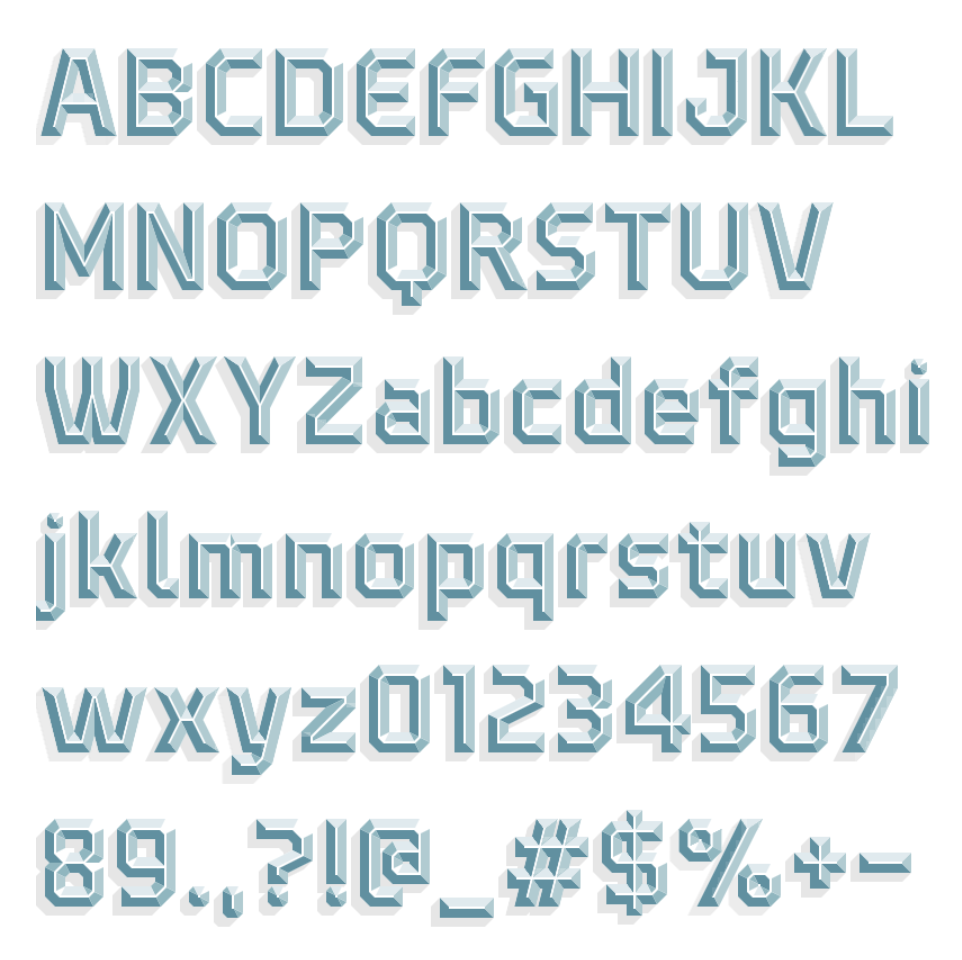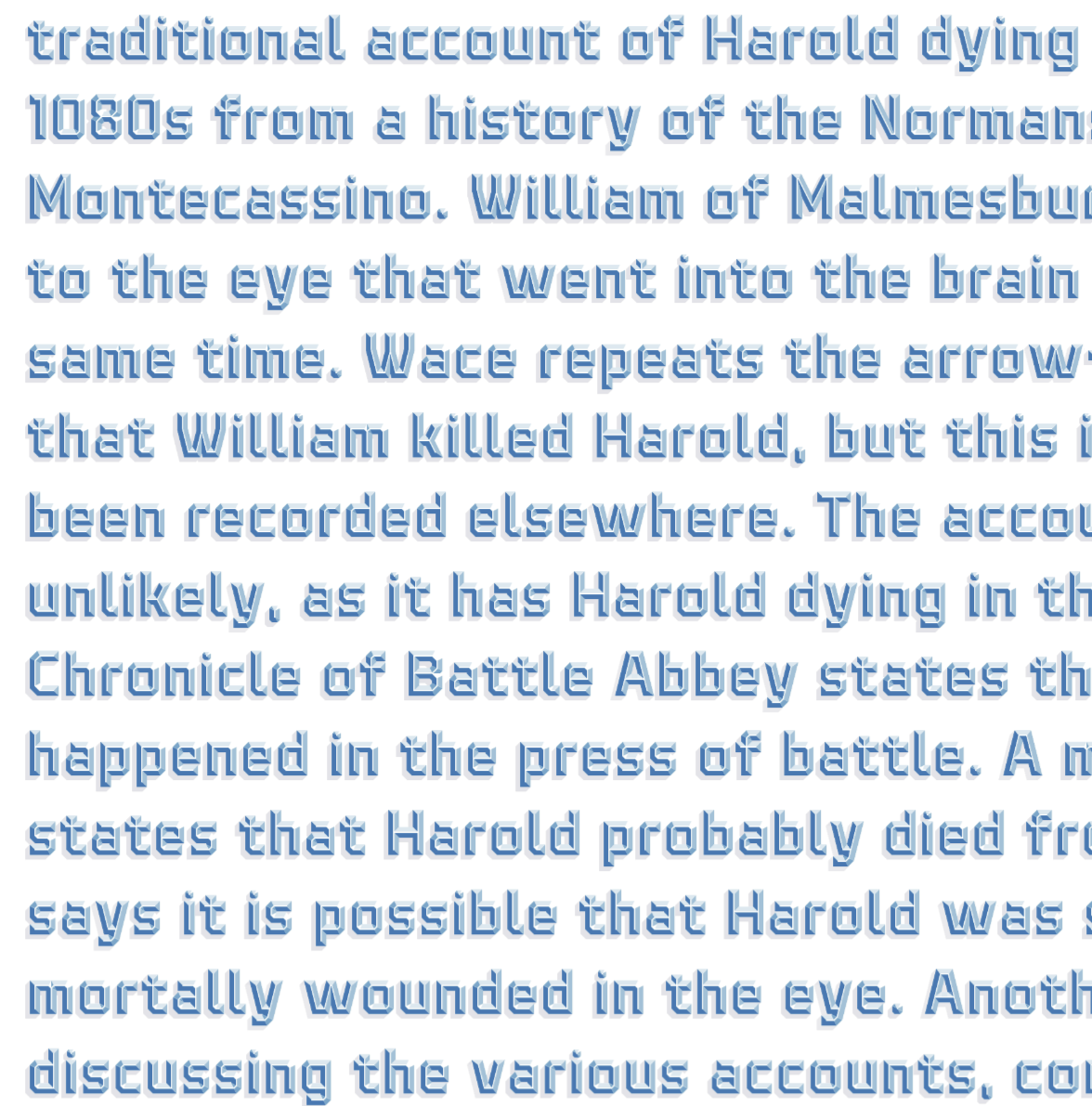
Yesterday, July 5, I finally completed the alphabet. It looks magnificent!
This is a sequel font to Bevel Dream, sharing the same design. The x-height here equals BD's caps height, and consequently, those letters can be used as small caps for this font (BD2). I don't plan Cyrillic support for BD2, but extended Latin is coming. Currently, it fully supports German.
Great! The lowercase is fantastic! 10+❤️
English sample text. No kerning.
The text appears to be working; there are no major flaws. It is an excerpt from Wikipedia, on the Battle of Hastings. There are enough Ws in it.
This font is just fantastic.
Remember back in the early days of FontStruct when we used to try and achieve such bevels through rendering technology of the day! We've come a long way. Thanks to Rob and you for bringing us here.
@thalamic: Thank you for your kind words. I remember well your metal series (silver, tin, lead), the fs Bas Relief, and Bevelicious of geneus1. They were like pixel art, using simple bricks to get different shades of grey. I recall the atmosphere of those days, experimenting with new techniques and making progress step by step. Fontstruct is now far more capable; the possibilities are almost endless.
@Frodo7 the ft ligature can be found in alphabetic presentation forms block (expert mode > Unicode letter sates > search for it) if you want to encode it in the actual glyph
@Luis Becerra (VeritasFonts): I'll do the final assembly in Glyphs. It is easy to define any ligature there using a simple script.
@Luis Becerra If you are talking about U+FB05 (ſt), it may look like an ft ligature in some fonts, but it is not. It is actually a ligature composed of a long s and t (ſ + t).
Also, if there are plans to expand the character set in Glyphs, how would combining diacritics be handled in a font like this?
@Bryndan W. Meyerholt (BWM): I don't know the answer. I've never edited colour fonts in Glyphs.